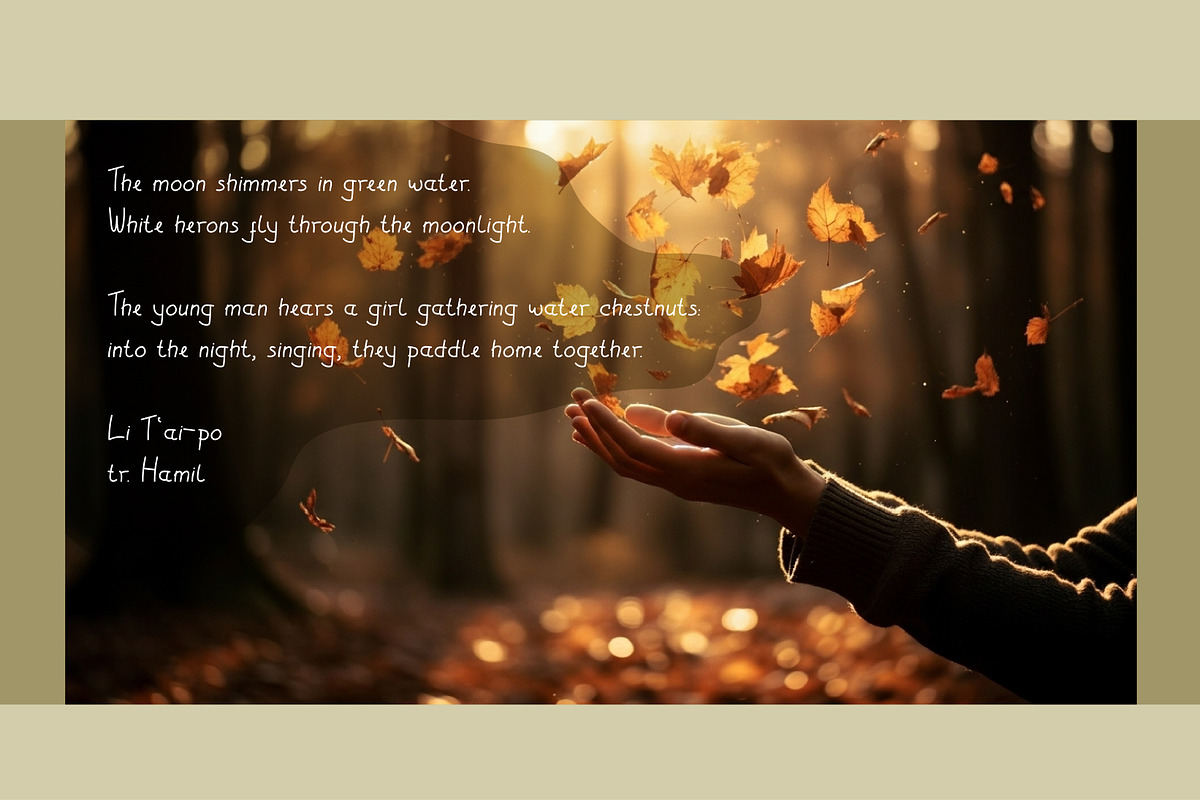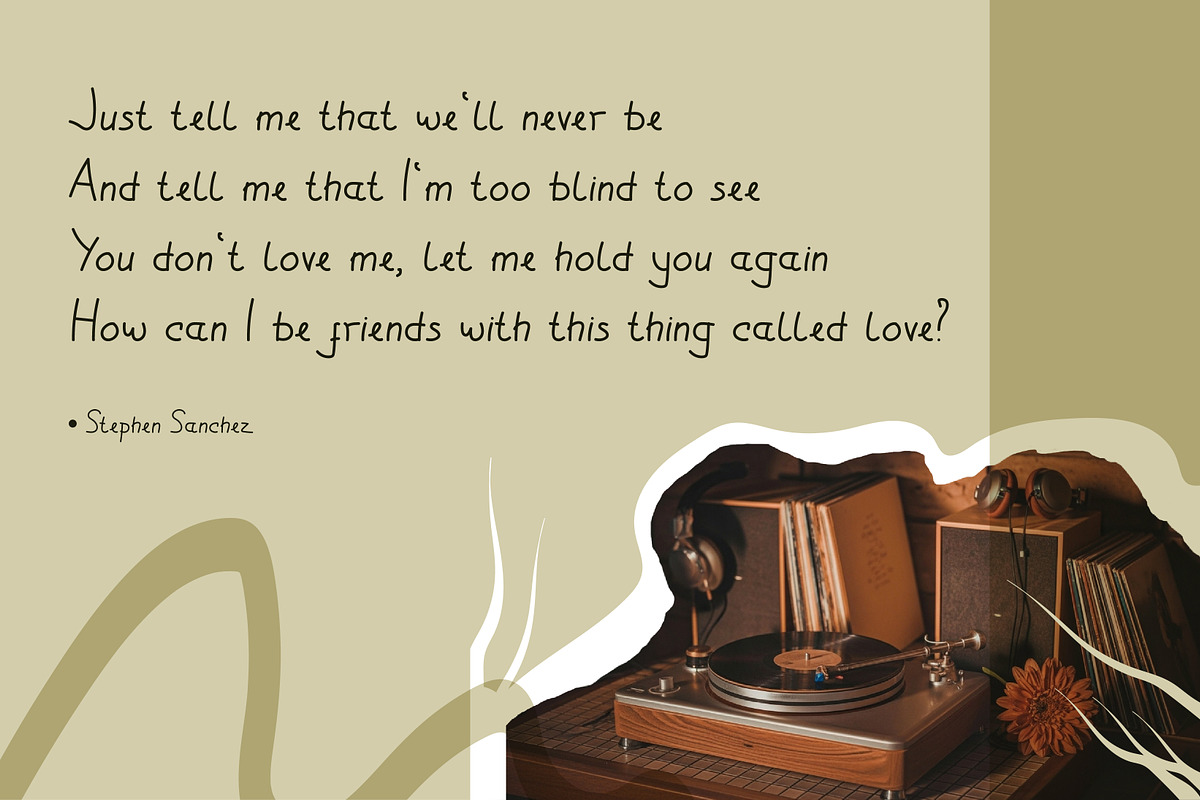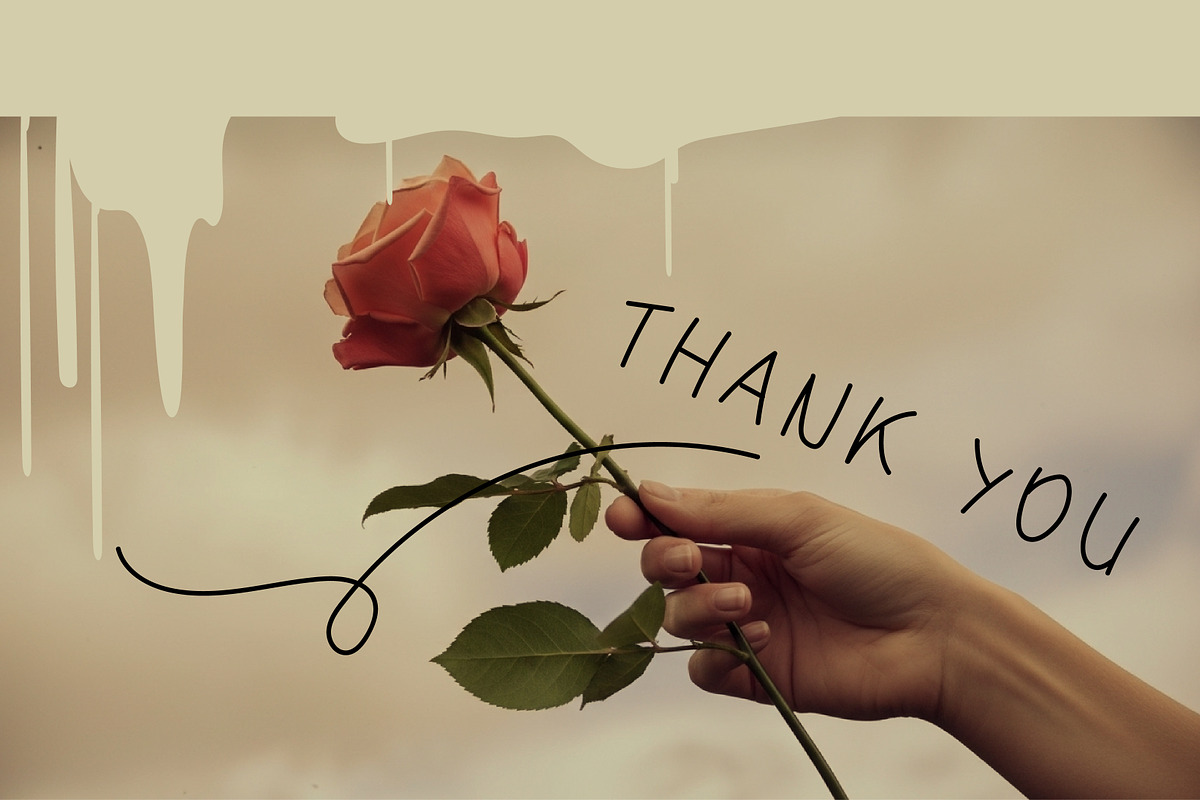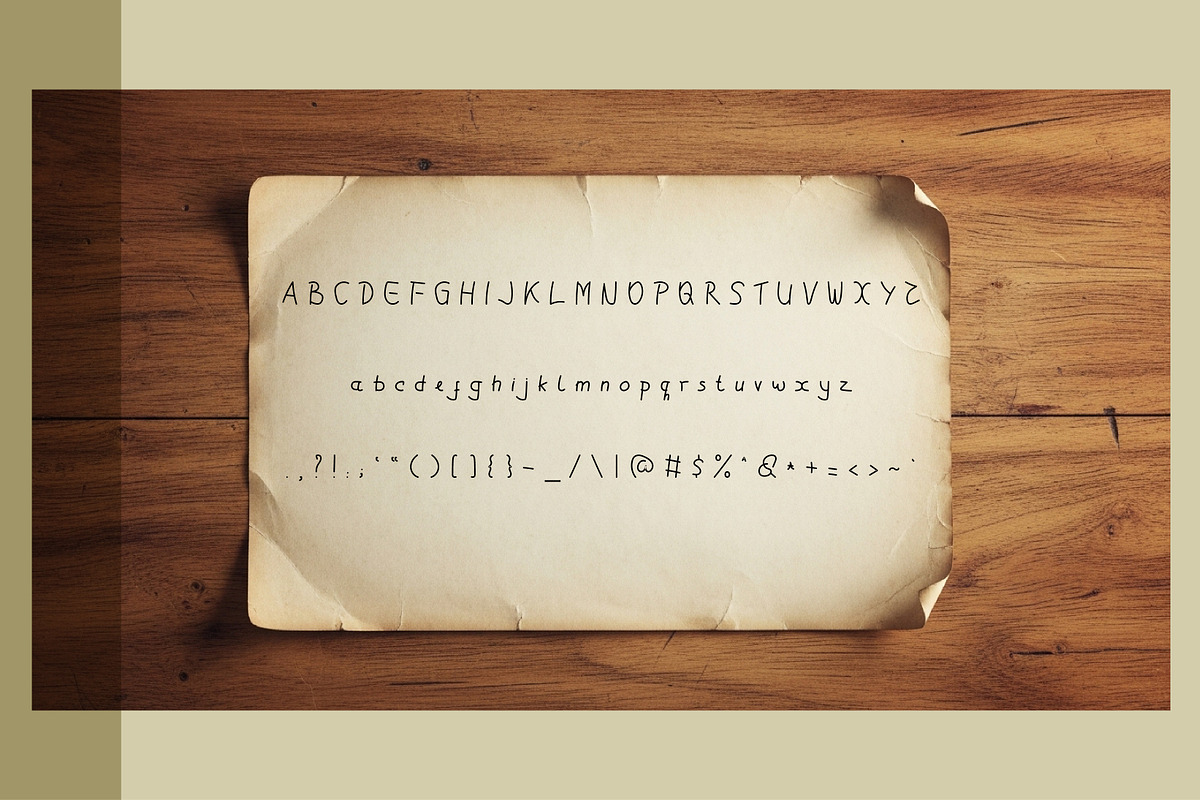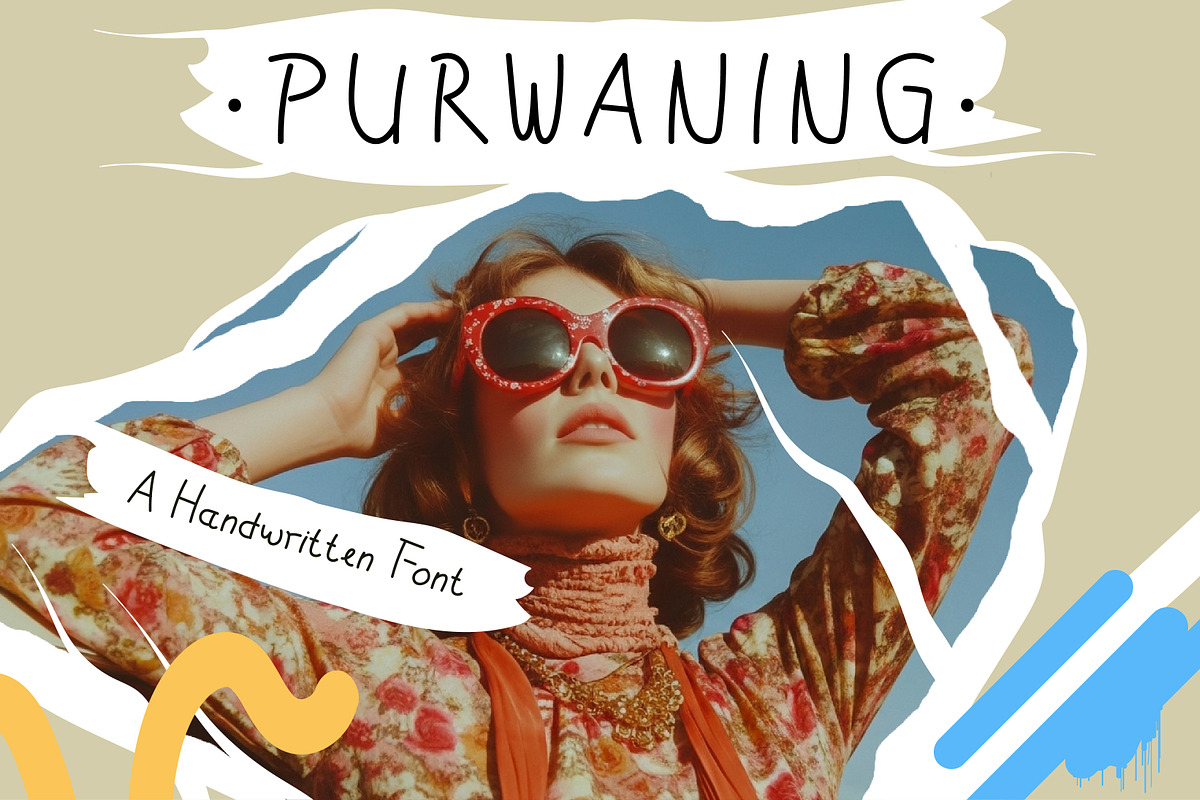
Purwaning - Handwritten
Purwaning is a handwritten font with a casual, playful, and natural style. Its imperfect strokes bring a personal and authentic touch, making it perfect for projects that need a warm and friendly vibe. Whether for quotes, invitations, posters, social media, or branding, Purwaning adds charm and creativity to every design.
- Uppercase & Lowercase Letters
- Greeting Cards & Invitations
- Social Media Content
- Branding & Logo Design
- Posters & Flyers
- Packaging Design
- Quotes & Typography Art
- Lifestyle Blog Graphics
- DIY & Craft Projects